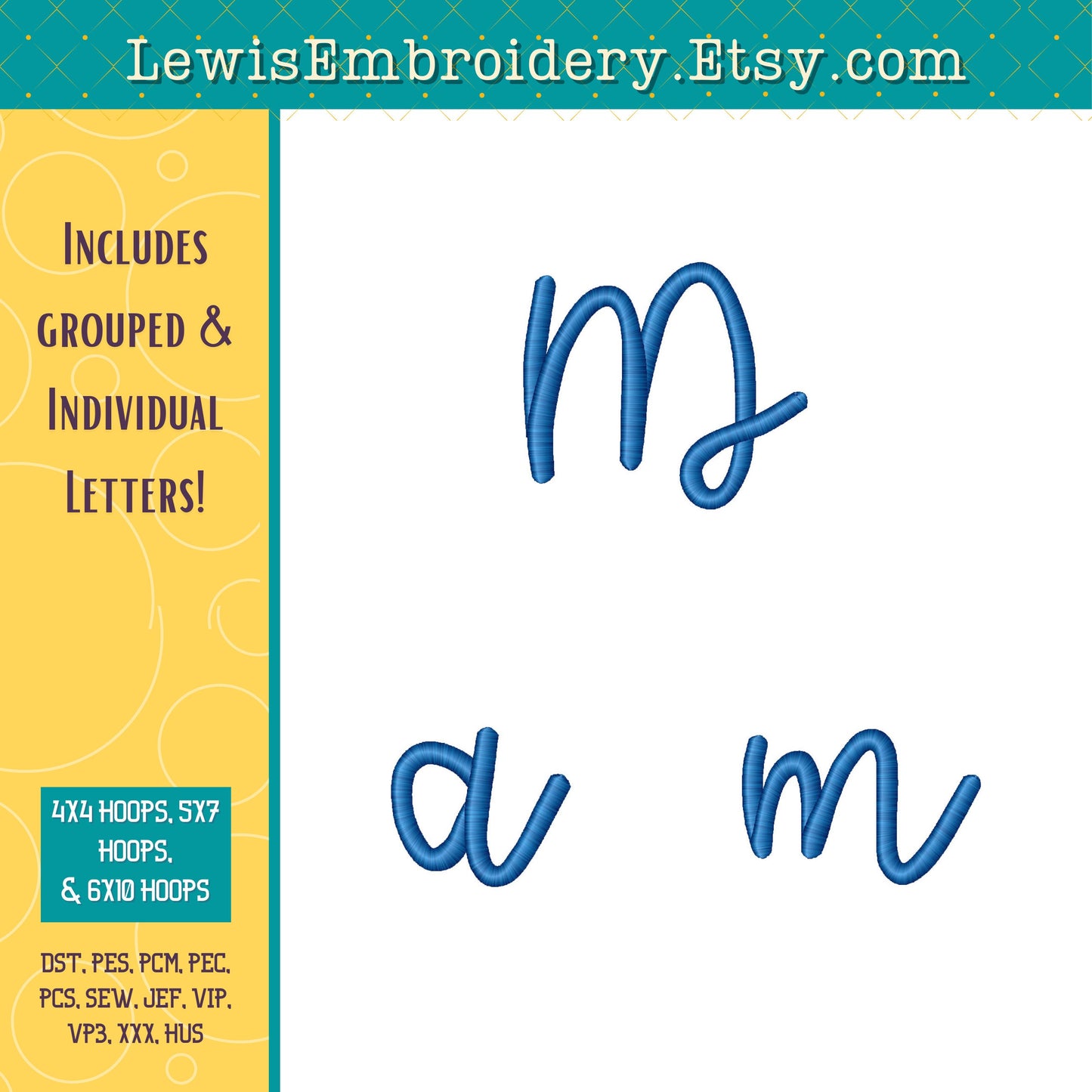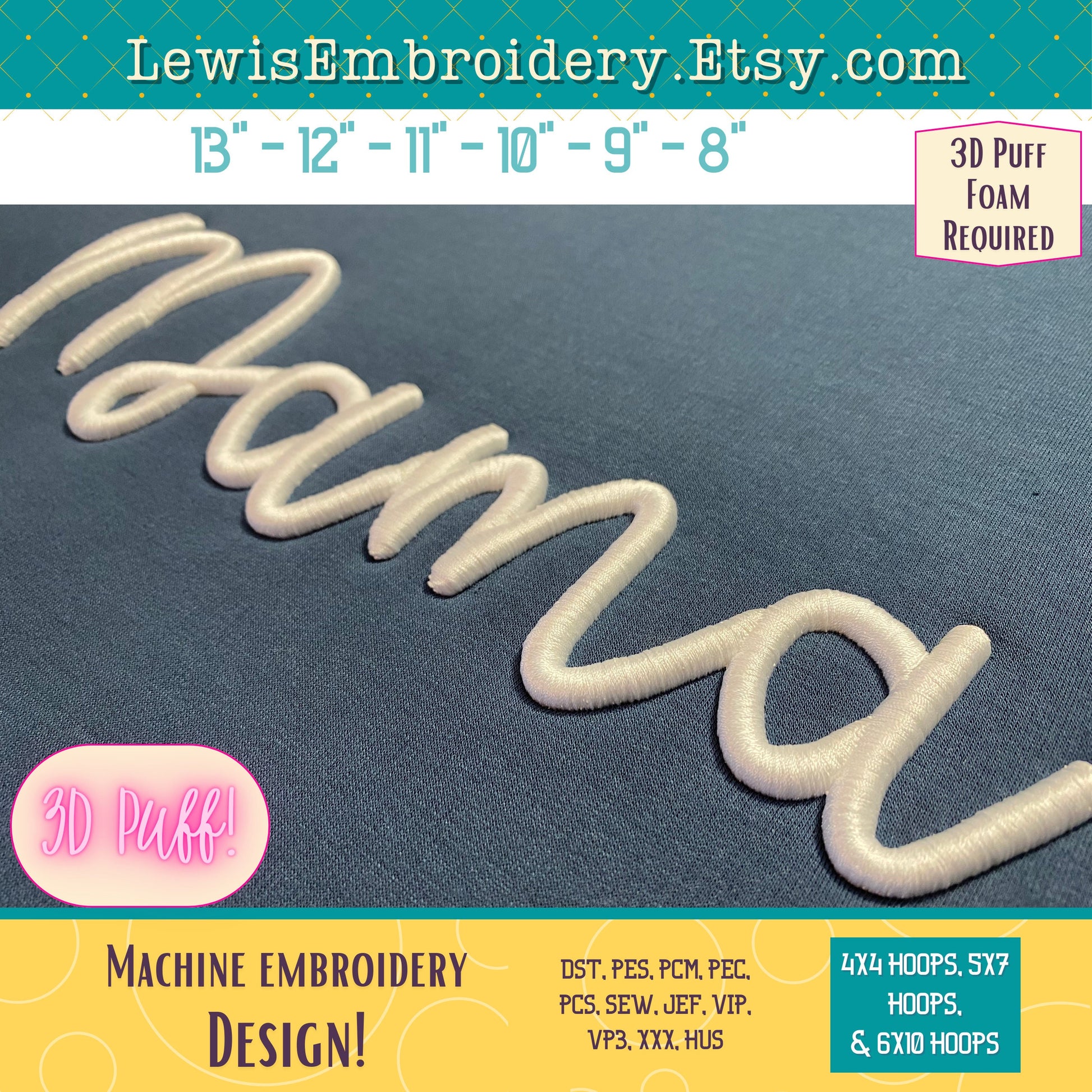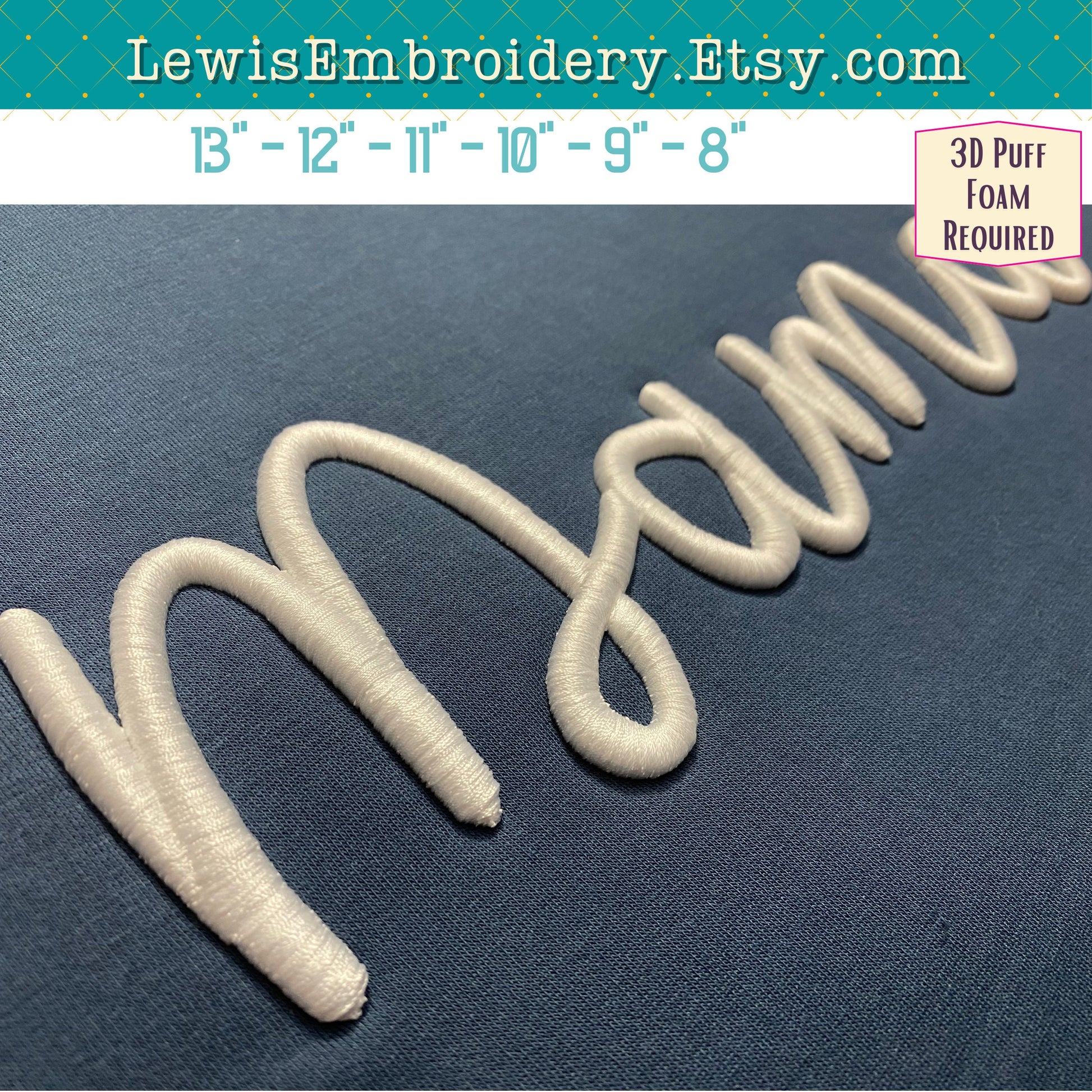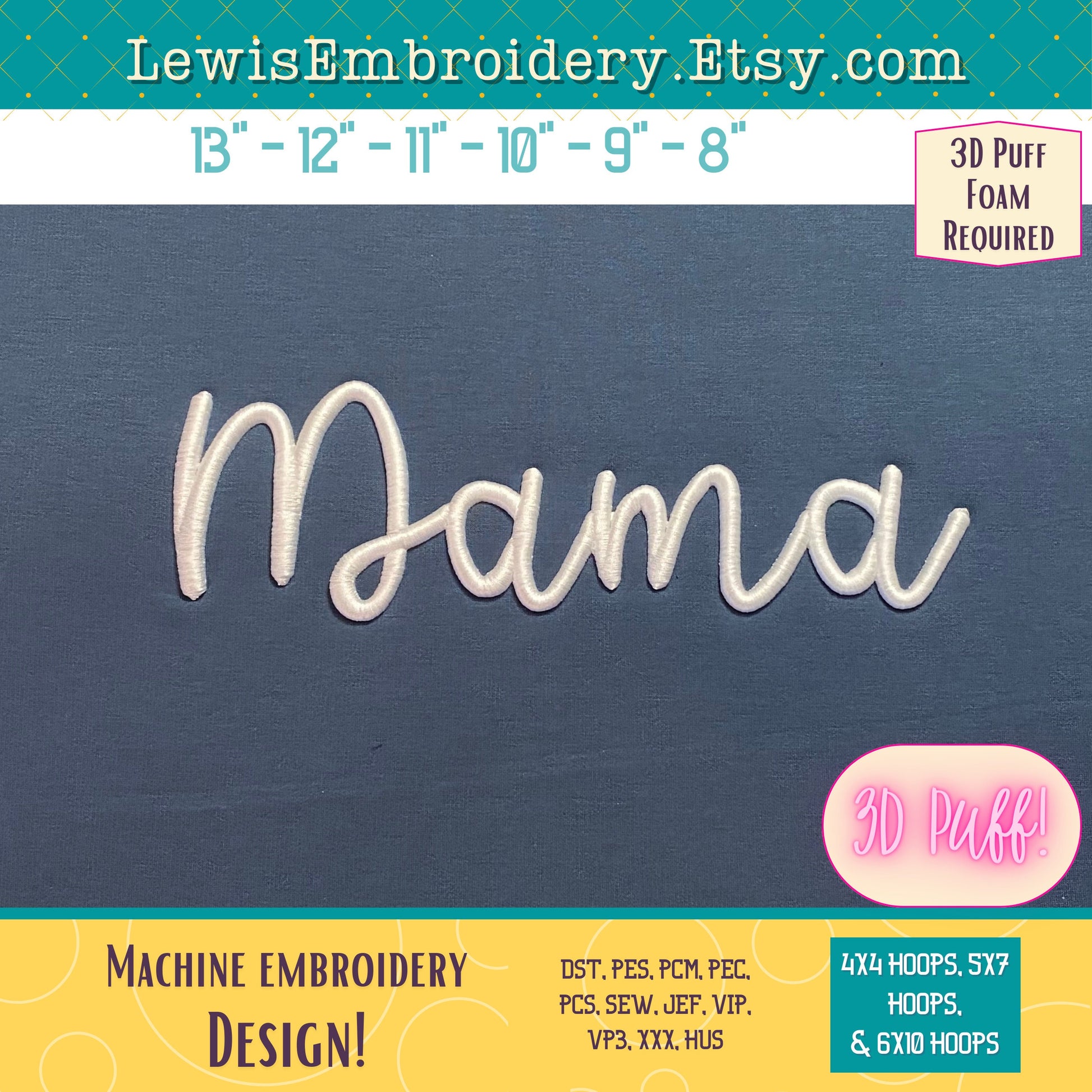
MAMA 3D Puff, Machine Embroidery Design - NOT Full Font - (Digital Download)
MAMA 3D Puff Embroidery Design - Mama Shirt - Puffy Foam Embroidery Font - Cursive, Script, 3D Embroidery - Mama Sweatshirt
This lovely Design will add a nice touch to any of your projects!
The individual letters are also included for use with smaller hoop sizes :)